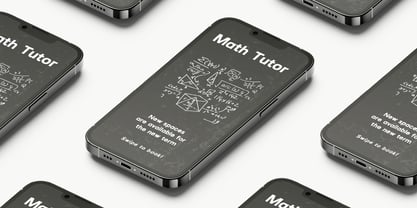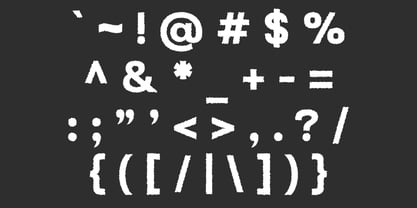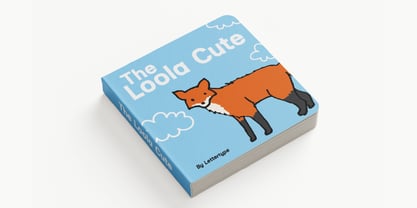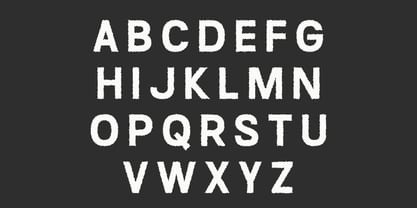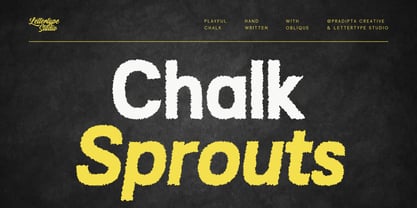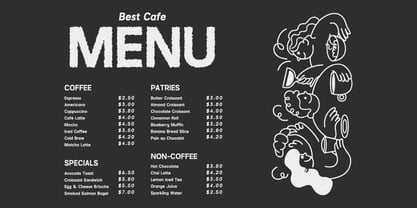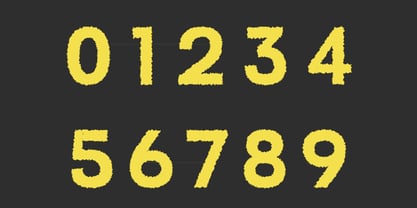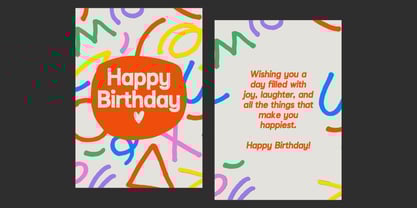
Chalk Sprouts
by Lettertype Studio
The Chalk Sprouts Font Family was designed by Diki Pradipta Tri Atmojo and published by Lettertype Studio. Chalk Sprouts contains 2 styles and family package options. More about this family
Chalk Sprouts is a fun and energetic handwritten chalk font designed to bring life to your projects. With rough textured strokes that mimic real chalk on a blackboard, it’s perfect for educational materials, food packaging, children’s content, party invitations, and more. Its friendly and approachable vibe makes every word feel playful and organic.
Whether you’re designing for school, café menus, posters, or Instagram content, Chalk Sprouts adapts seamlessly. Multilingual support, alternate characters, and natural imperfections give it an authentic handmade look. Add a touch of creativity and lighthearted charm to your work with Chalk Sprouts.
Designers: Diki Pradipta Tri Atmojo
Foundry: Lettertype Studio